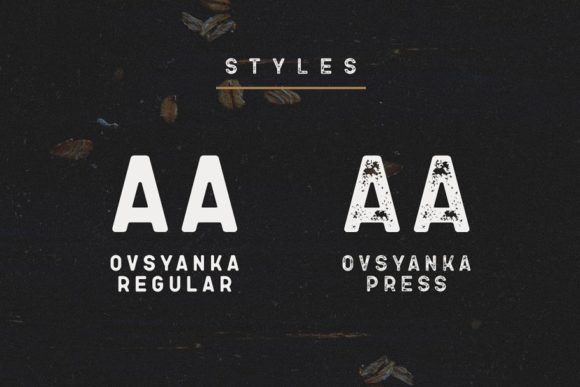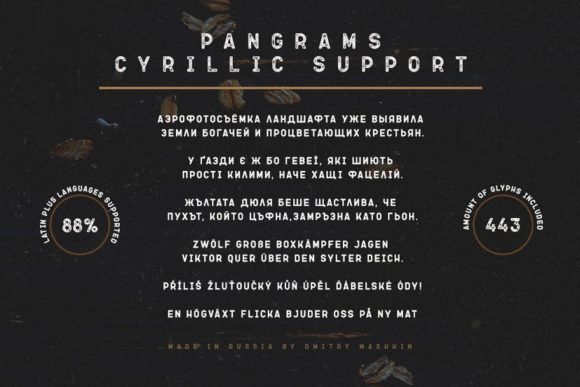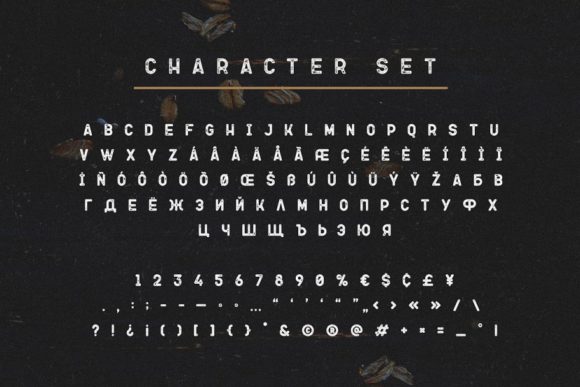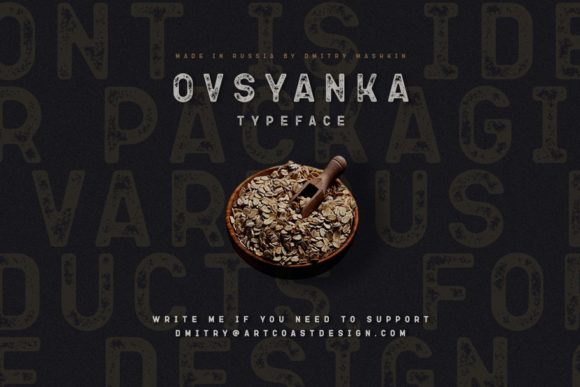
Introduction to Ovsyanka Font
Imagine you’re working on a creative project, pouring your heart and soul into every detail. The words “the perfect font” often come to mind, but sometimes it’s hard to find that elusive match. That’s where the Ovsyanka Font comes in – a game-changing display font that will take your designs to the next level.
With its unique modern design and high-quality aesthetic, the Ovsyanka Font is a valuable resource for designers. Whether you’re working on branding, headings, or wedding designs, this versatile font is sure to elevate your creative project. Plus, its transparent background and free download make it an attractive addition to any design arsenal.
Key Features of Ovsyanka Font
- High-quality, professional design suitable for creative projects
- Unique, hand-drawn style with a transparent background for versatile design
- Designed to be highly legible and easy to read in various resolutions and sizes
- Perfect design resource for designers, artists, and creatives working on various projects
Honest Review: Ovsyanka Font
I recently had the chance to work with the Ovsyanka Font, and I must say it’s been a delightful experience. The font is a great addition to any creative project, and I appreciate that it’s available for free download.
One of the things that stands out about the Ovsyanka Font is its high quality. The characters are well-designed and look great on a transparent background. This makes it perfect for use in logo designs, website headers, or any other design where a clean and simple look is desired.
Here are some of the things that work well with the Ovsyanka Font:
- Its high quality design makes it perfect for a variety of creative projects
- The transparent background makes it easy to use in a variety of design scenarios
While the Ovsyanka Font is a great resource, there are a few limitations to be aware of:
- ⚠️ The font may not be suitable for use in very large font sizes, as the characters can appear distorted
- ⚠️ The font is not available in as many weights and styles as some other fonts on the market
Overall, I’m very impressed with the Ovsyanka Font. It’s a great design resource that’s perfect for use in a variety of creative projects. With its high quality design and transparent background, it’s sure to be a hit with designers.
Ovsyanka Font
The Ovsyanka Font is suitable for various creative projects, including:
1. Branding and logo design.
2. Print materials, such as business cards and brochures.
3. Digital designs, like social media graphics and presentations.